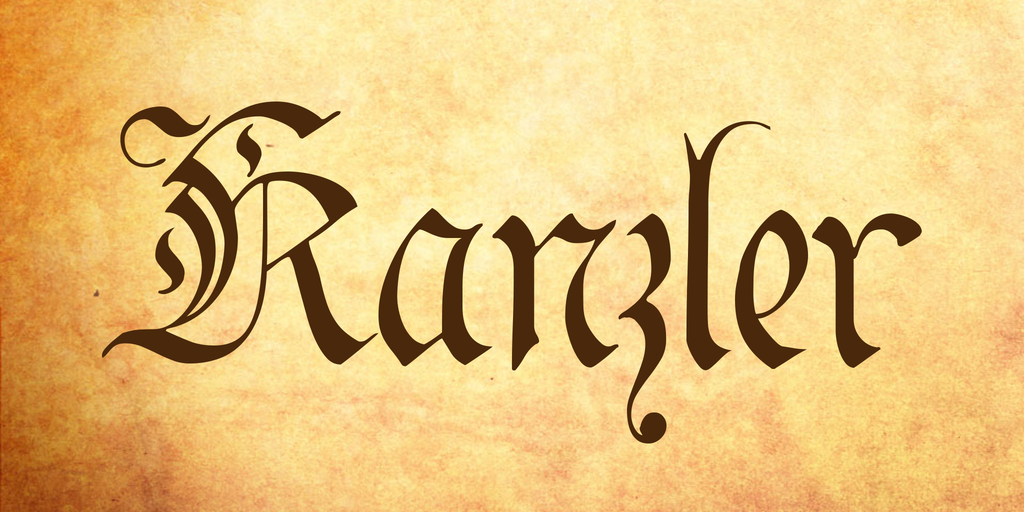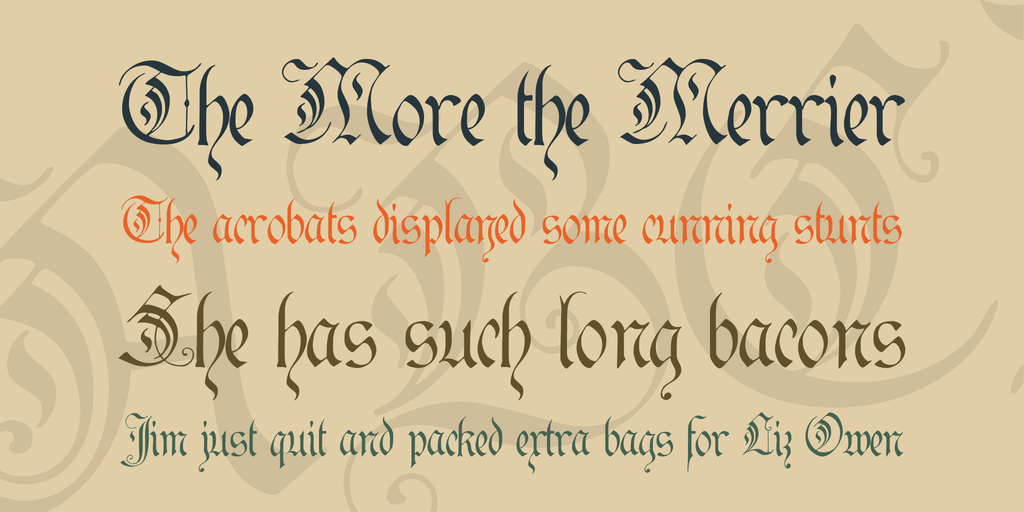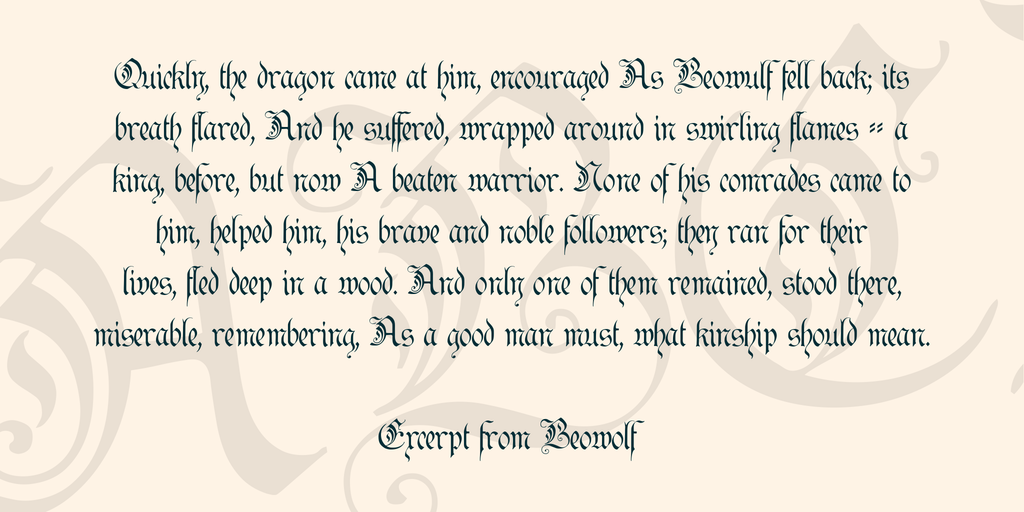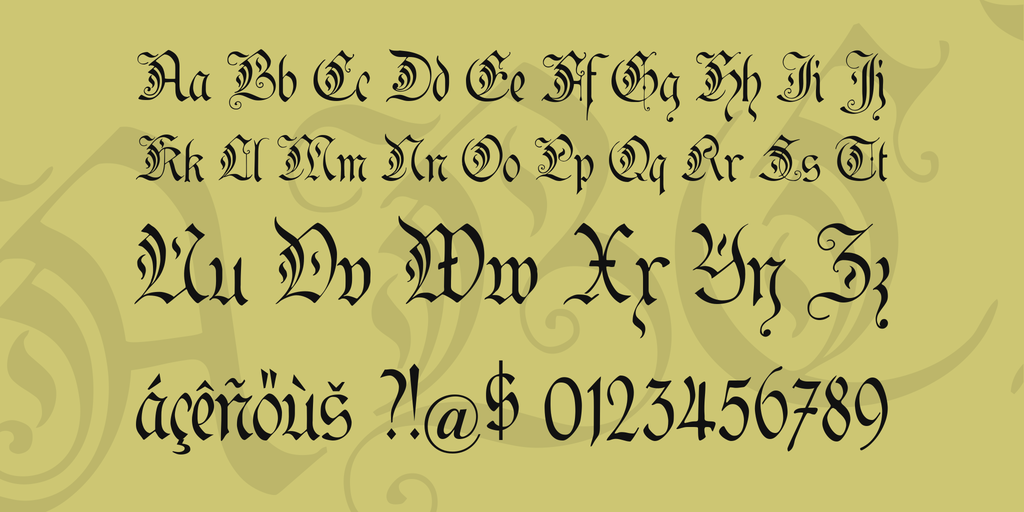
Kanzler Font
The Kanzler font (Chancellor) is one of my rather quickly built fonts, but I think that one does not have to overdue it with handdrawn fonts when it comes exact contours. Nevertheless, as with all my blackletter fonts, I have included UNZ1 ligatures and the long s to make this font fully usable. Please donate if you like the font!